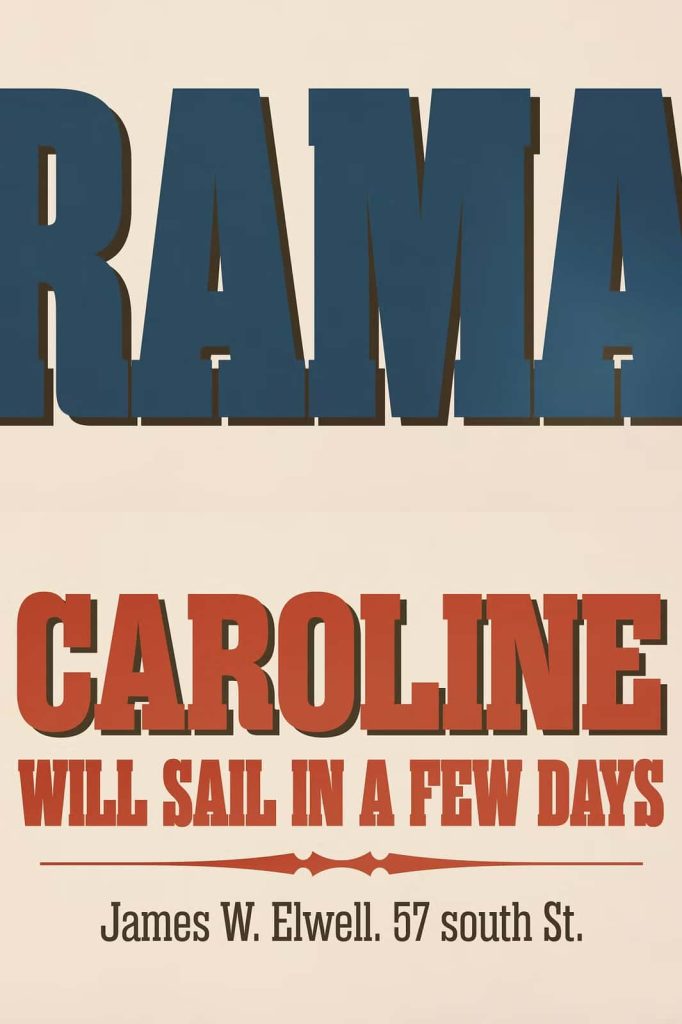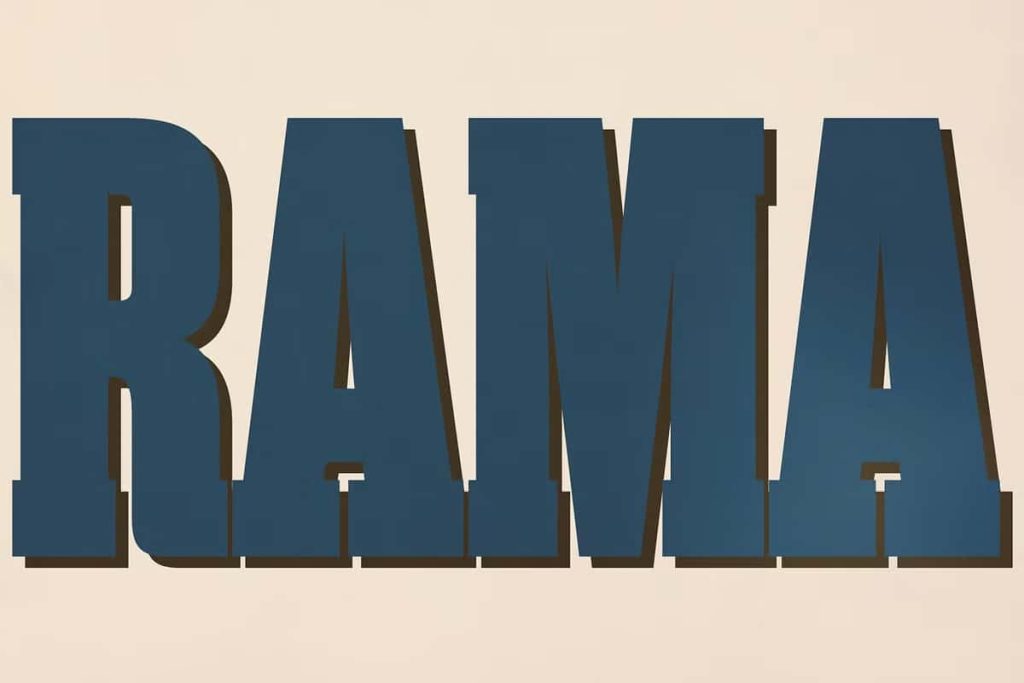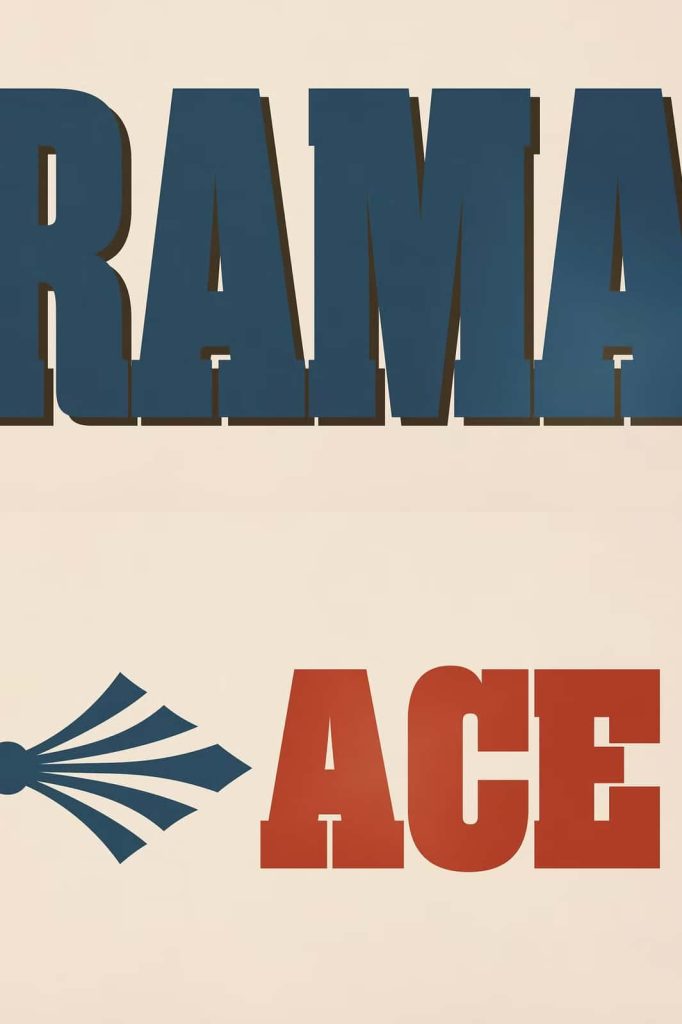
Rama Slab: An Antiqued Slab Serif Typeface Inspired by 19th-Century Wood Type
Rama Slab is a powerful slab serif typeface that draws direct inspiration from the bold wood type of the 19th century. Designed to capture the raw character and handcrafted quality of vintage printing, this font brings historic depth and visual authority to modern design projects. Its antiqued appearance reflects an era when type was carved, inked, and pressed by hand, resulting in letterforms rich with texture and personality.
Every glyph in Rama Slab communicates strength and authenticity. The condensed proportions and heavy slab serifs create a commanding presence, making the font ideal for designs that need to stand out instantly. Whether used in print or digital formats, Rama Slab delivers a timeless aesthetic rooted in typographic tradition.
Authentic Wood Type Inspiration
Rama Slab channels the unmistakable look of 19th-century wood type, once widely used for posters, broadsides, and storefront signage. The font reflects the imperfections and charm of those early printing methods, where slight inconsistencies added character rather than detracting from readability.
The antiqued details give Rama Slab a weathered, lived-in feel. Subtle roughness and textured edges echo the wear of wooden blocks that have seen years of use. This attention to detail ensures the typeface feels authentic rather than artificially distressed.
Meticulously Crafted Letterforms
Each glyph in Rama Slab is carefully designed to maintain consistency while preserving the organic quality of hand-crafted type. The balance between structure and texture allows the font to remain highly legible, even when used at large sizes or in bold compositions.
The condensed letterforms maximize impact without consuming excessive space. This makes Rama Slab particularly effective for dense layouts where visual power and clarity must coexist.
A Versatile Family with 18 Distinct Styles
Rama Slab includes an extensive family of 18 styles, offering designers exceptional flexibility. These styles allow you to build hierarchy, contrast, and rhythm within a single type family. From bold headlines to layered typographic compositions, Rama Slab adapts to a wide range of creative needs.
The variety of styles supports experimentation while maintaining a cohesive visual identity. Designers can easily mix and match weights and treatments to create dynamic layouts that feel intentional and polished.
Ideal for Posters, Titles, and Bold Display Design
Rama Slab excels in display typography. Its bold forms and condensed structure make it a natural choice for posters, titles, album covers, editorial headlines, and branding projects that demand attention. The font commands the viewer’s eye while reinforcing a sense of heritage and craftsmanship.
When used in large formats, Rama Slab truly shines. The details of its slab serifs and textured edges become more pronounced, adding visual interest and depth to the design.
Designed to Make a Strong Visual Statement
Rama Slab is not a background font. It is designed to lead the composition, establish mood, and anchor the visual narrative. Its bold presence works especially well in vintage, retro, industrial, and Americana-inspired projects.
Despite its historic roots, Rama Slab integrates seamlessly into modern design workflows. It pairs effectively with clean sans-serif fonts, creating contrast between contemporary simplicity and classic weight.
Why Choose Rama Slab?
Rama Slab offers more than a vintage look. It provides a carefully engineered type system that honors traditional wood type while meeting modern design standards. Its combination of authenticity, versatility, and impact makes it a valuable tool for designers who want their work to feel both bold and timeless.
If your project calls for a typeface with history, texture, and undeniable presence, Rama Slab delivers a compelling solution that brings the past into the present with confidence.